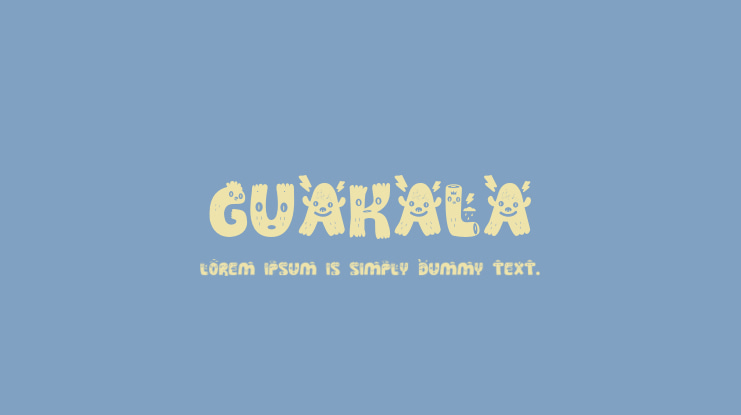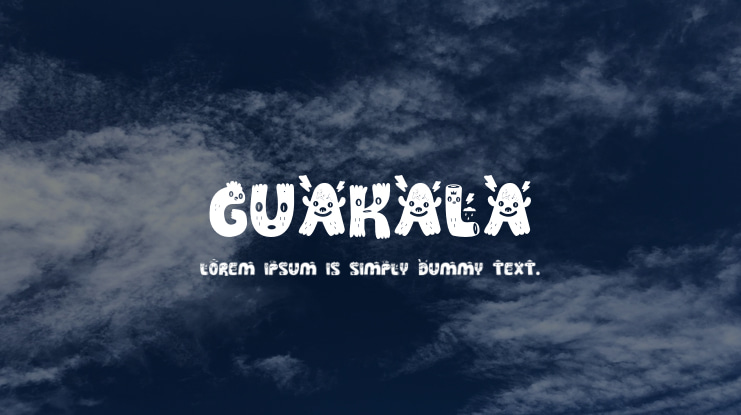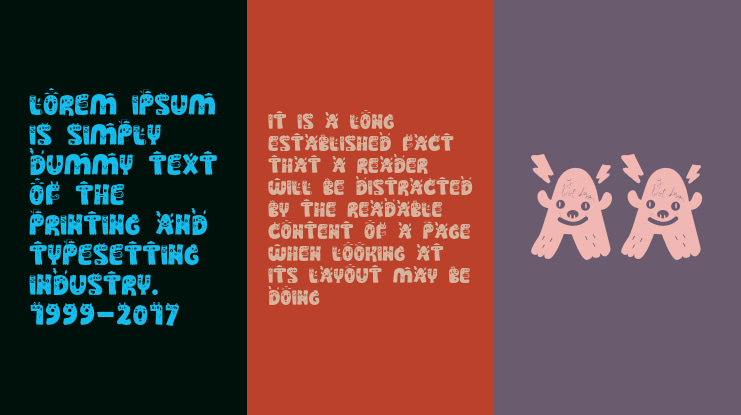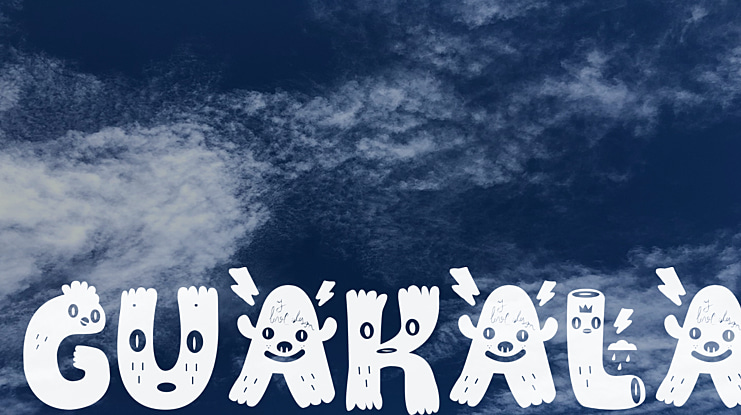
Guakala Font
Name:Guakala Author: Rodrigo Araya Salas Year Creation: 2013 Foundry: Zootype.cl Concept: Guakala is a display typeface, containing various alphabets (Cyrillic, Greek) typography is an entertaining and cheerful looking to be in different support